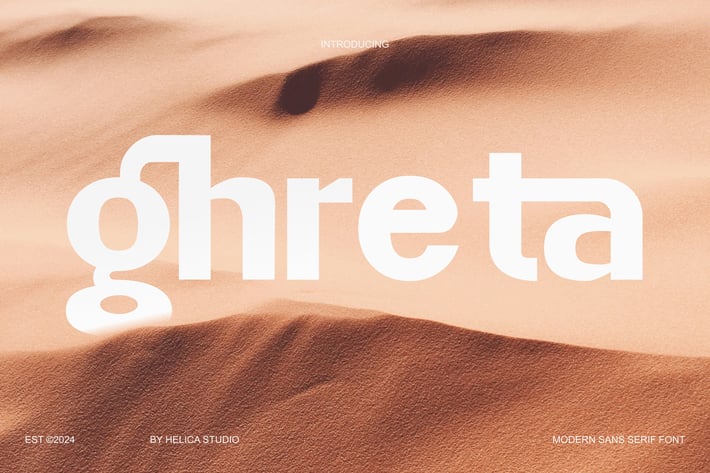
Ghreta Sans Serif Font
Ghreta Sans Serif Font typeface is perfect for crafting elegant quotes, stunning logos, captivating magazine headers, and so much more.
Main Features
Ligatures
Numeral & Punctuations